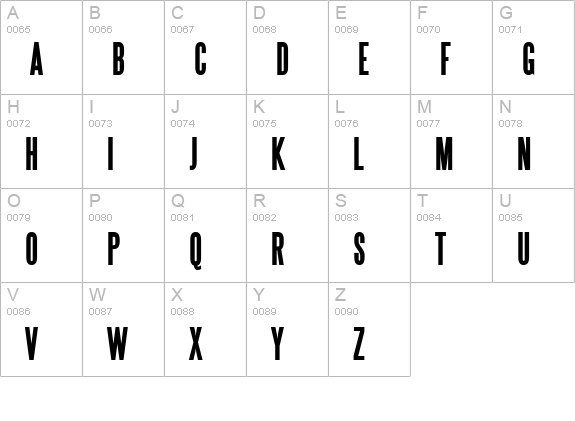
Steelfish Bold is a strong, high-contrast variant in the Steelfish typeface family \xE2\x80\x94 well suited to headlines, attention-grabbing titles, and strong calls-to-action.
Steelfish Bold is a bold and powerful font that exudes strength and confidence. Its sturdy and geometric design makes it perfect for a variety of design projects, from logos to headlines. The thick and bold strokes give it a commanding presence, while the clean and modern lines add a touch of elegance. This font is freely available to download at FontsMarket.com, making it accessible to designers and creatives all around the world. With its versatility and timeless appeal, Steelfish Bold is sure to be a valuable addition to any design toolkit. Whether you're working on a branding project, a poster design, or a website, Steelfish Bold will make a bold statement. Its strong and impactful appearance will instantly capture attention and leave a lasting impression. With its wide range of characters and glyphs, this font offers endless possibilities for customization and creativity. The legibility of Steelfish Bold is exceptional, making it suitable for both print and digital applications. Its bold and distinctive letterforms ensure that your message will be easily read and understood, even from a distance. Whether you're a professional designer or just starting out, Steelfish Bold is a font that you can rely on. Its timeless design and versatility make it a go-to choice for a wide range of design projects. With its freely available download at FontsMarket.com, there's no reason not to add this powerful font to your collection. Embrace the boldness and make a statement with Steelfish Bold.